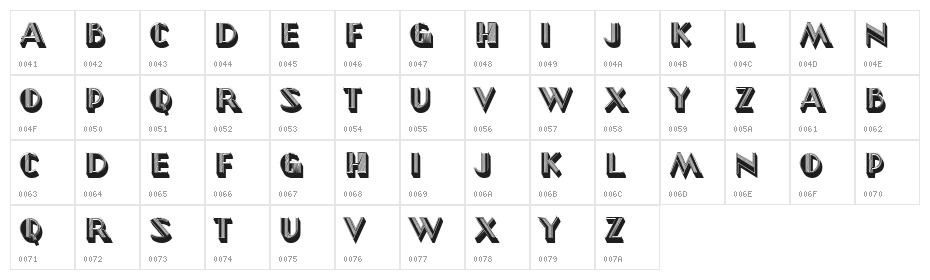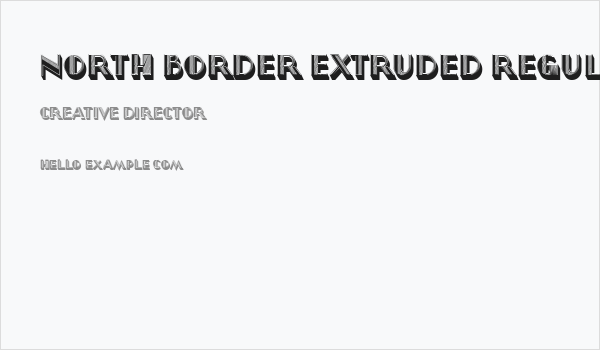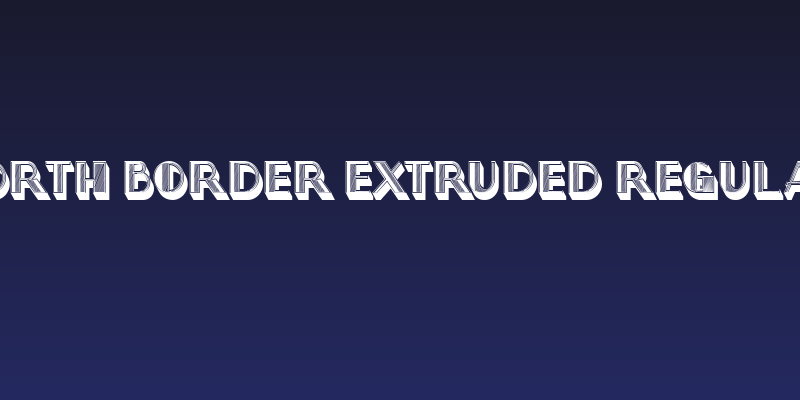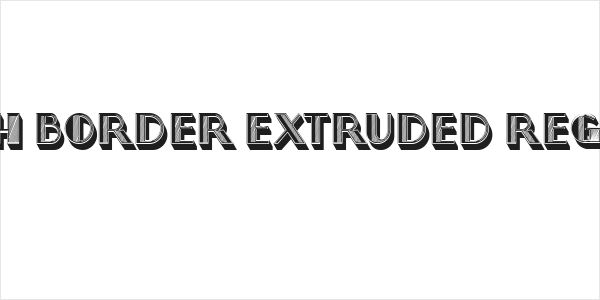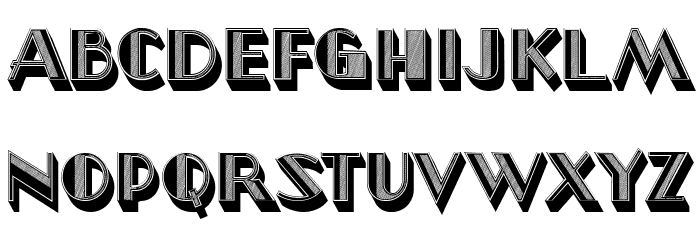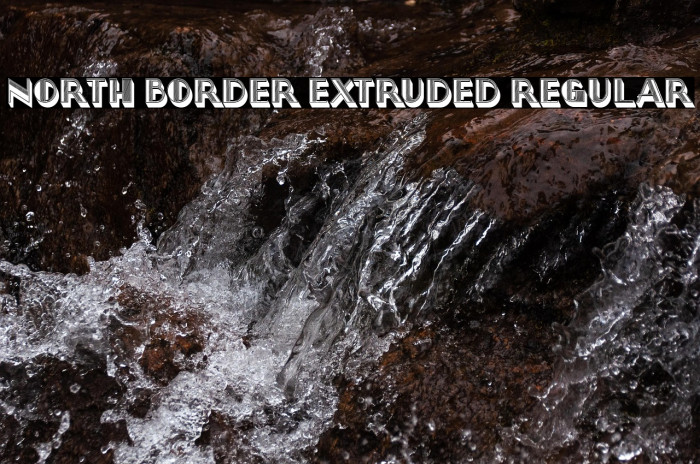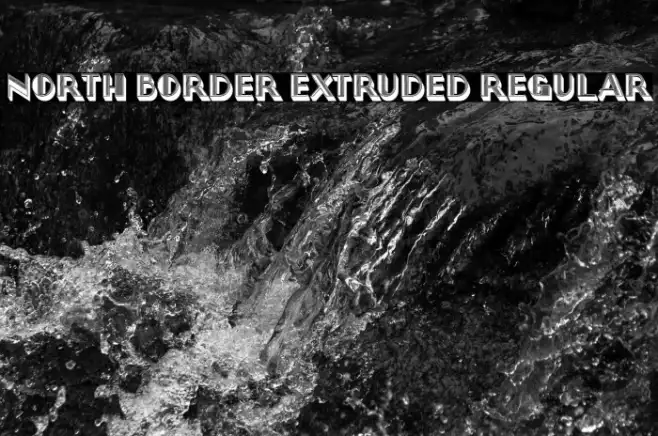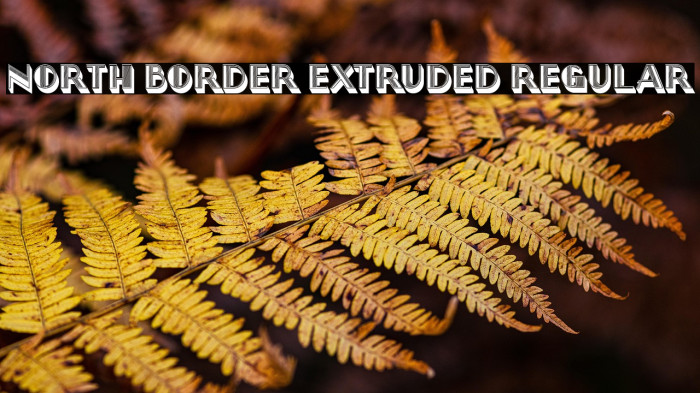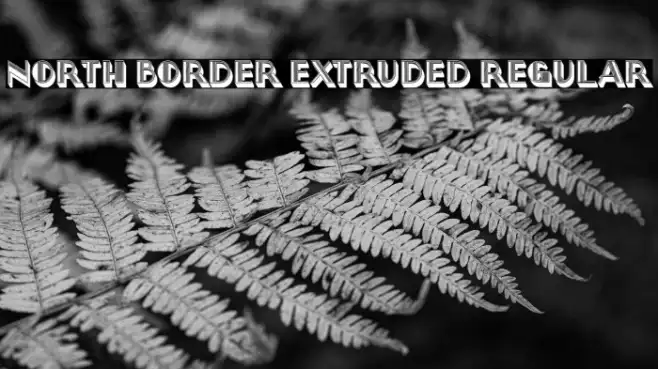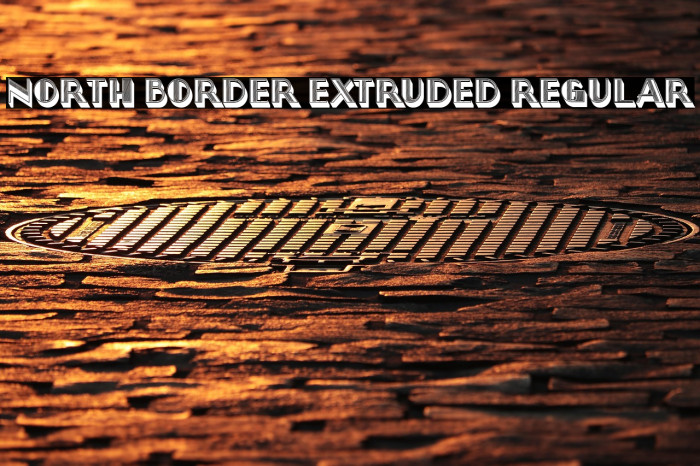
North Border Extruded Regular Font
North Border Extruded Regular Description
This font features a bold, three-dimensional extruded style that gives each character a striking, shadowed appearance. The letters are capitalized and display a strong geometric form with sharp angles and clean lines. The extrusion effect adds depth and a sense of movement, making the font highly eye-catching. The design is reminiscent of vintage signage or retro posters, with a modern twist. The boldness and unique style make it suitable for projects that require a standout typographic element.
| Overall Style | Vintage, Modern |
| Proposed Projects | Ideal for poster designs, logos, headlines, and branding materials that require a bold and dynamic visual impact. |